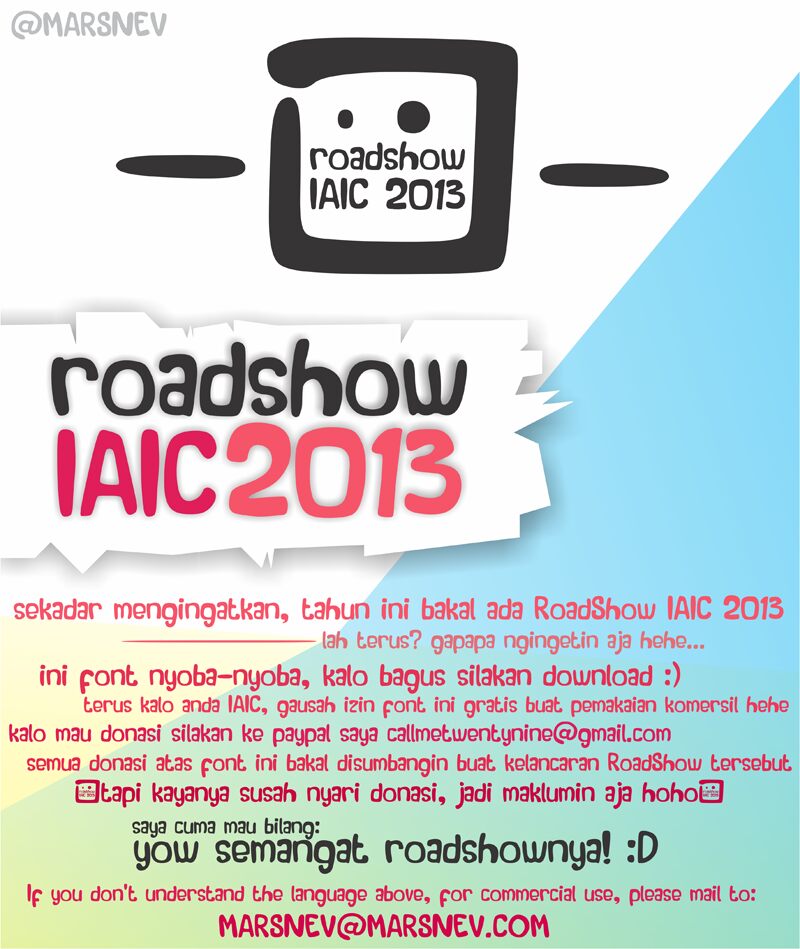
Roadshow IAIC 2013 is a free cartoon display font with broad, softly rounded letters and an easygoing marker-drawn appearance. The forms tilt and swell with lively, handmade unevenness.
Family restaurants and casual food brands are the clearest audience, with menu headings, packaging, and storefront signs all matching its friendly irregularity. Children's event posters also make sense, especially when the lettering can echo simple illustrations, paper cutouts, or hand-painted props. Its broad shapes speak most directly to young families and customers who respond to warm, informal design rather than polished corporate graphics.